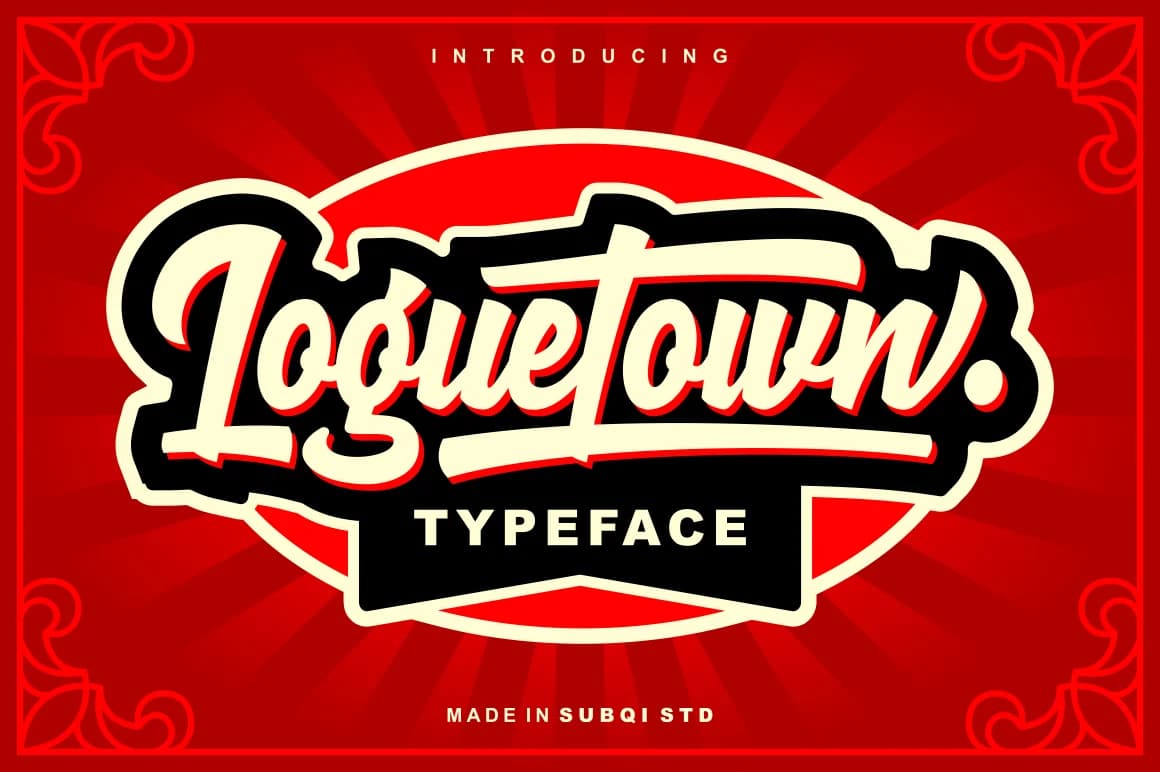
Loguetown Font by Subqi Std is a bold brush script that brings dynamic movement and substantial weight to every design. Inspired by hand-drawn lettering and contemporary brush techniques, this typeface delivers confident strokes and strong visual presence while maintaining excellent readability at various sizes.
This versatile script works beautifully for wedding invitation suites, where its expressive letterforms add genuine personality to announcements and custom stationery designs. Boutique brands and independent makers use it for artisan product labels and packaging that truly stand out on retail shelves. Social media cover images and promotional graphics gain instant visual impact from Loguetown's commanding style, perfect for drawing followers' attention in crowded feeds. Event posters, concert announcements, and festival promotional materials benefit from its bold character, effectively drawing the eye and capturing attention in competitive spaces.
The font's substantial weight and distinctive letterforms make it particularly effective for headlines and focal points in editorial layouts, branding projects, and display-oriented work where you need a typeface that confidently makes a statement. Whether designing intimate stationery or bold advertising materials, Loguetown delivers the personality and presence that distinguishes thoughtful design. Discover Loguetown Font on Creative Fabrica and bring authentic boldness to your next design project.
Loguetown Font is a script font that shines as a display or heading face. Pair it with a clean sans-serif or serif font for body text β the contrast creates a clear hierarchy while the two styles stay balanced and easy to read.
Loguetown Font
by Subqi Std